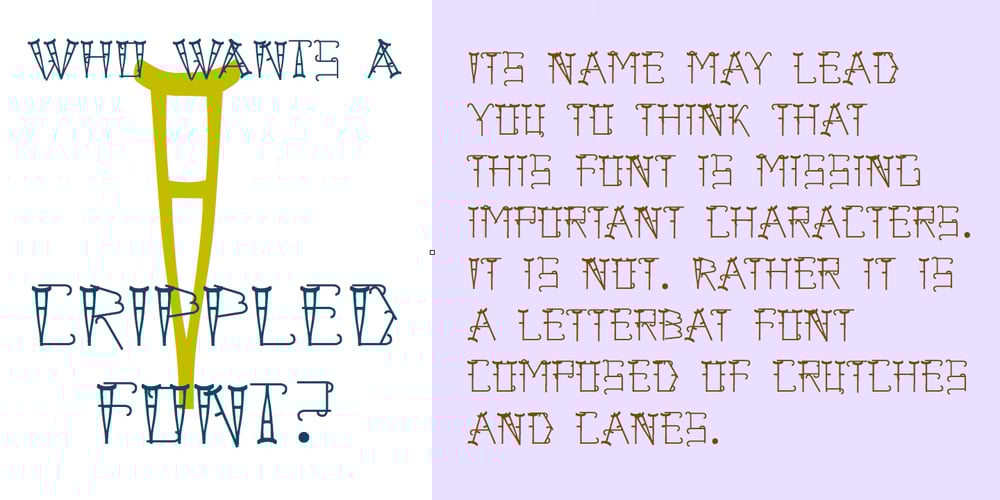
Crippled Font Font Family was designed by Robert Schenk and published by Ingrimayne Type. Crippled Font contains 1 styles and family package options. Its name, CrippledFont, might lead you to think that this font was missing important characters. It is not. Rather it is a letterbat font composed of crutches and canes. It is caps only, with the lower-case keys having an alternative set of capitals. It has an extensive set of accented letters that will support most European languages.